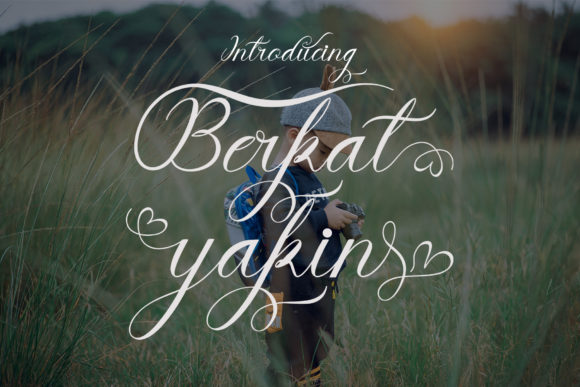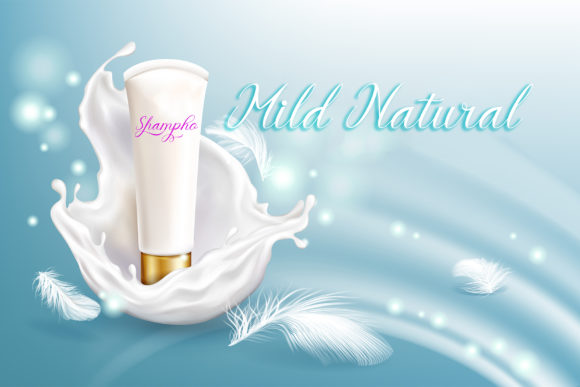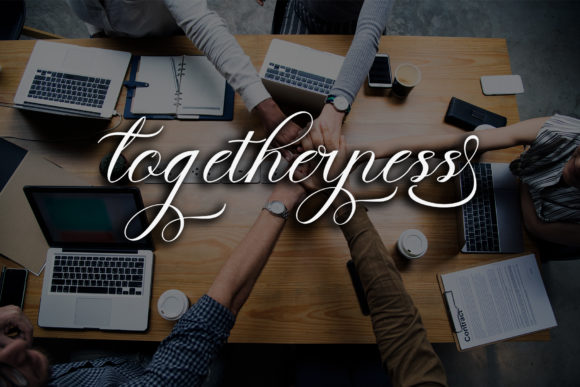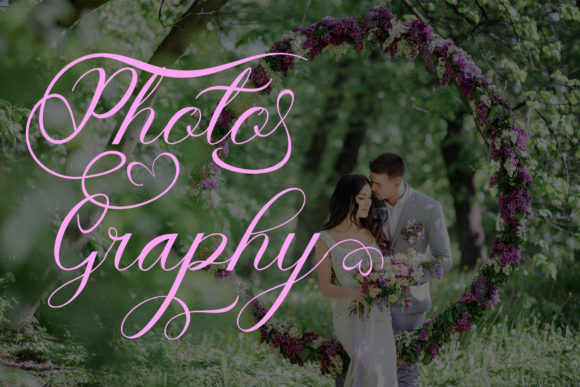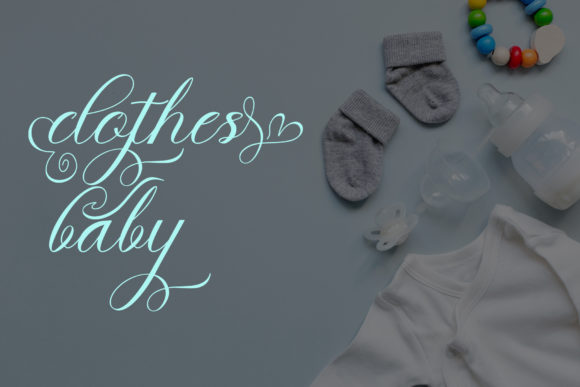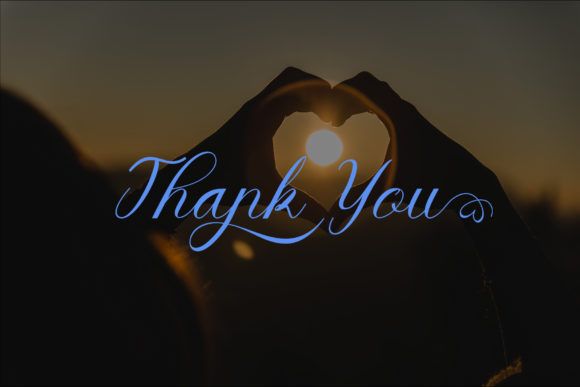
HomeScript FontsBerkat Yakin Font Script Fonts Berkat Yakin Font FacebookXPinterestWhatsApp Berkat Yakin Font Poster 2 Berkat Yakin Font Poster 3 Berkat Yakin Font Poster 4 Berkat Yakin Font Poster 5 Berkat Yakin Font Poster 6 About Berkat Yakin Font Berkat Yakin is a sweet and delicate handwritten font. It updates classic calligraphy with modern simplicity. DOWNLOAD ON CREATIVE FABRICAThis font is sold and delivered by Creative Fabrica. Font Canyon may earn a commission if you buy through this link. People also explored Smooth Font Vine Monogram Wreath Font Cobeg Felix Font Mr Rafkin Vierra Font Haana Duo Madison Christmas Split Monogram Font Silent Hills Font Smile Font 439 0 TagsBerkat Yakin Font Previous articleParagon FontNext articleBrightina Script Font LEAVE A REPLY Cancel reply Comment: Please enter your comment! Name:* Please enter your name here Email:* You have entered an incorrect email address! Please enter your email address here Website: Save my name, email, and website in this browser for the next time I comment. Personal Use Free Turpentine Personal Use Free Read more about this font 1980 Portable Personal Use Free Read more about this font Cinderella Personal Use Free Read more about this font Muthiara Font Personal Use Free Read more about this font BLOG The 10 Best Handwriting Fonts to Add Personality to Your Designs 10 of the Best Handwriting Fonts for Adding Personality to Your Designs There will undoubtedly be no other better choice than handwriting fonts to give... Where to Buy American Fonts Online in 2024 Modern Sans-Serif Fonts That Brands Love in 2025 Best Fonts for YouTube Videos: Make Your Thumbnails Stand Out